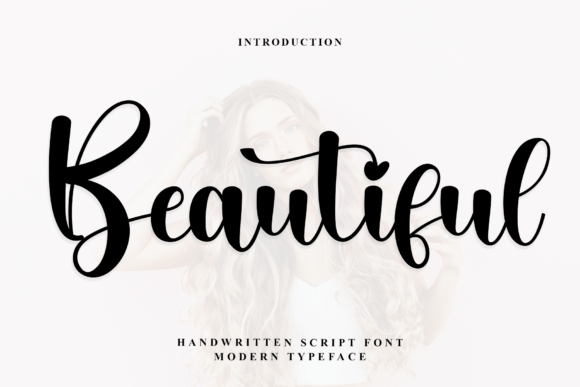
Have you ever stared at a blank page, wondering what words would bring your design to life? The blank canvas can be intimidating, but the right font can be the spark that sets your creativity ablaze. For designers looking to add a touch of elegance and whimsy to their work, the Beautiful Font is an excellent choice.
This delicate handwritten font is carefully crafted to evoke a sense of cool and unique design. Whether you’re writing a heartfelt letter, designing an invitation, or creating a title for a food product, the Beautiful Font is the perfect companion for your creative journey. Its versatility and charm make it a valuable asset for designers, allowing them to add a personal touch to their work.
Beautiful Font Key Features
- Unique Characteristics: Beautiful Font features a unique blend of modern and elegant design elements, including intricate details and subtle flourishes, making it perfect for headings and titles.
Designer Review: Beautiful Font
Overall, I’m impressed with Beautiful Font, but as with any design, it’s not without its quirks. ✨ Here are some things that work well:
- Beautiful Font has a unique, elegant aesthetic that’s perfect for high-end branding and luxury products.
- The font’s curves and lines are meticulously crafted, making it feel premium and sophisticated.
- The font family includes a range of weights and styles, making it easy to customize for different applications.
- The font may not be suitable for smaller text sizes, as the details can get lost.
- The font family is quite large, which can make it difficult to manage and organize in design projects.
- The font’s elegance can sometimes come across as overly formal or stuffy.
Overall, I’d say Beautiful Font is a solid choice for designers who need a high-end, elegant font. However, it may not be the best fit for every project. With some careful consideration and planning, Beautiful Font can add a touch of sophistication to even the most complex designs.
For a more elegant look, use Beautiful Font in combination with a light background and subtle graphics.
For a striking effect, use Beautiful Font in combination with bold graphics and contrasting colors.
For a professional look, use Beautiful Font in combination with a clear and concise layout.
Use Beautiful Font for:
2. Luxury branding and packaging.
3. High-end marketing materials and brochures.
For the best results, experiment with different font sizes, colors, and combinations to achieve a unique and stunning look.